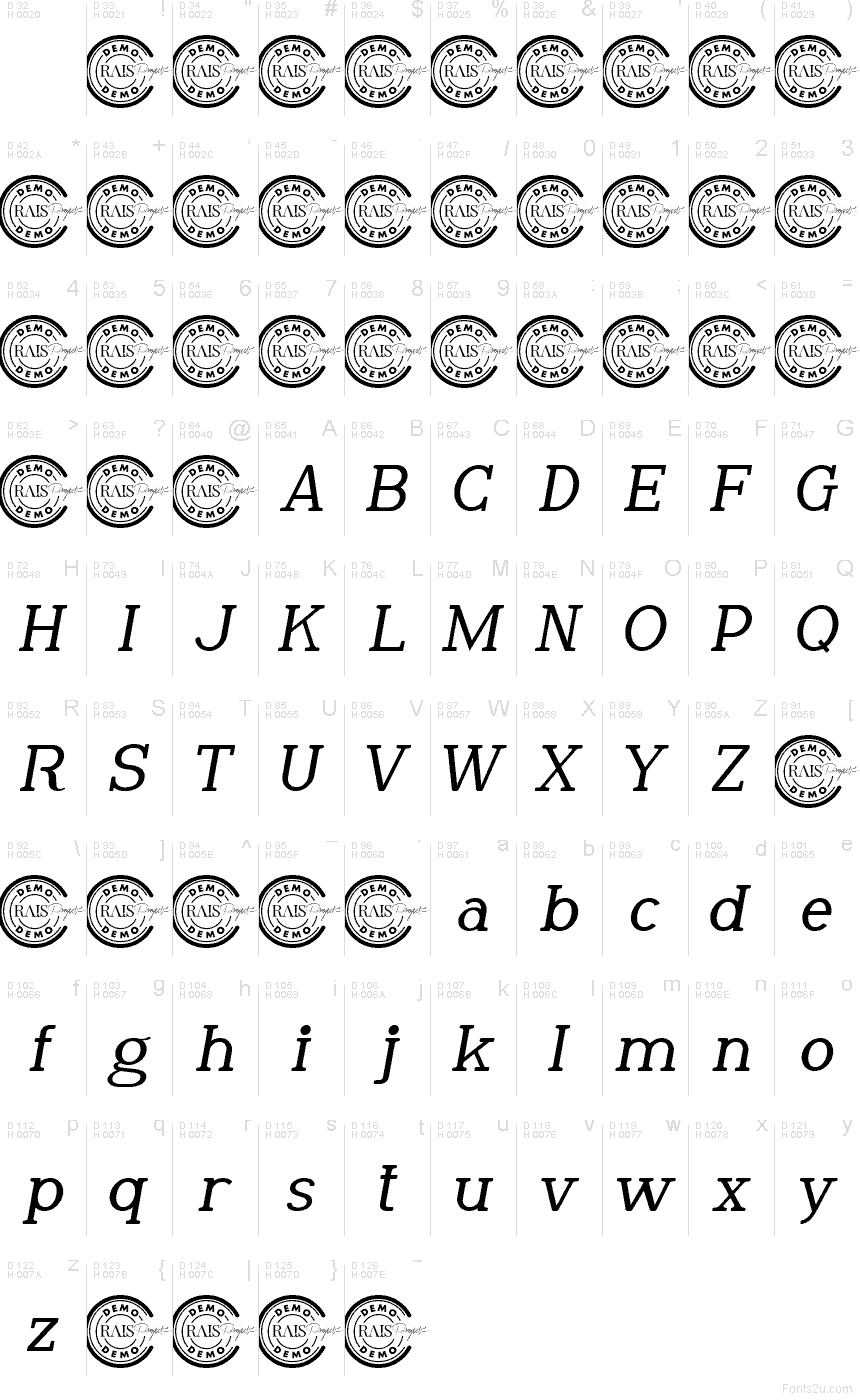
Royal Estelle Demo Italic
Royal Estelle Italic font by RaisProject is a free serif typeface that brings a poised, literary elegance to any layout. Its gentle rightward slant, crisp hairlines, and subtly flared strokes feel like carefully inked handwriting, but with the structure and spacing of a professional text font. The overall texture is smooth and refined, giving headlines and short phrases a graceful, confident voice without feeling fussy or old-fashioned.
Using Royal Estelle Italic, you can add a touch of polish to wedding invitations, book covers, boutique branding, luxury packaging, magazine pull quotes, and romantic posters. This free font shines when set a bit larger, where its curves and rhythm can breathe, and it pairs beautifully with a clean sans serif from the Royal Estelle family or similar for supporting body text.